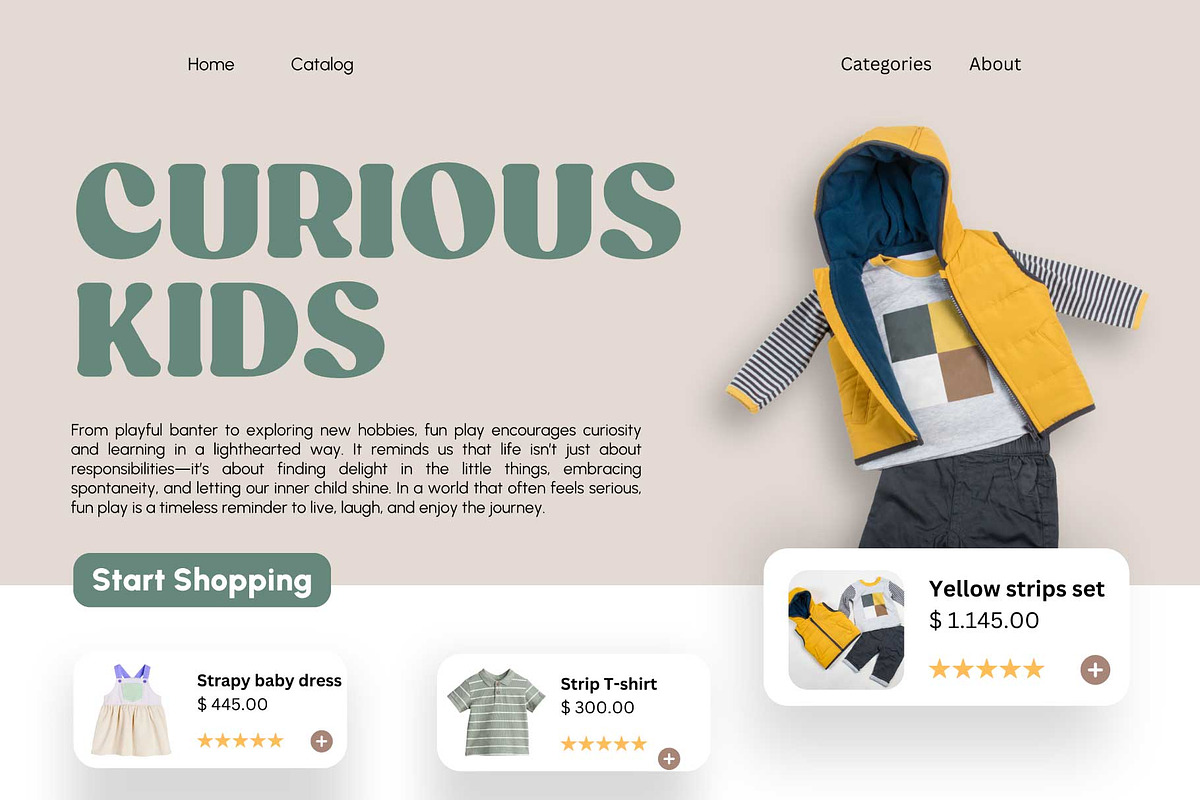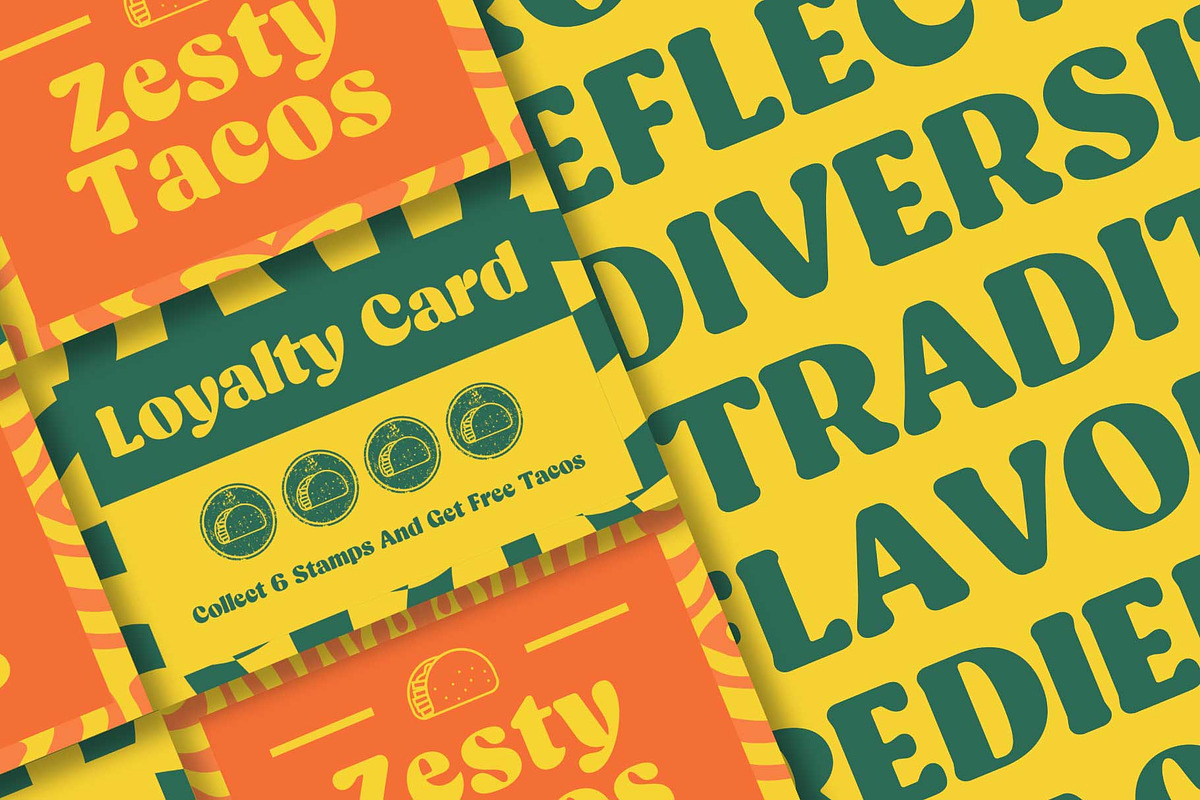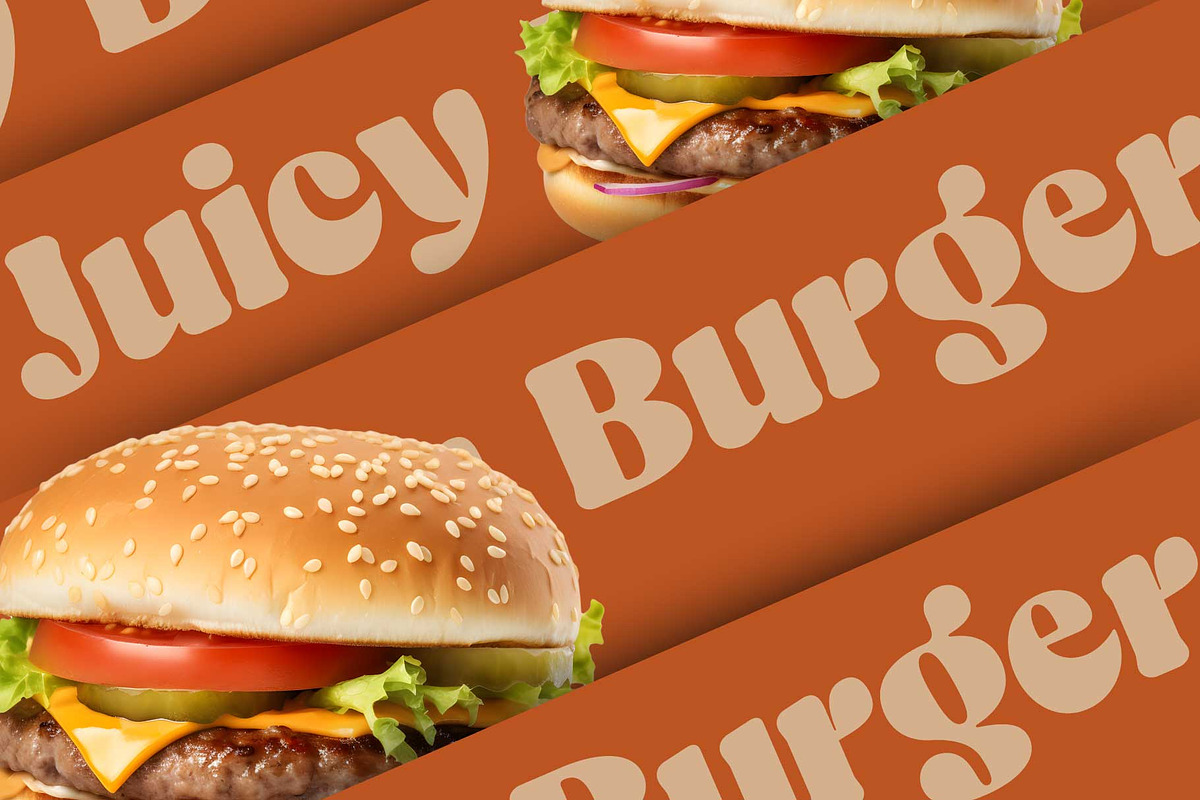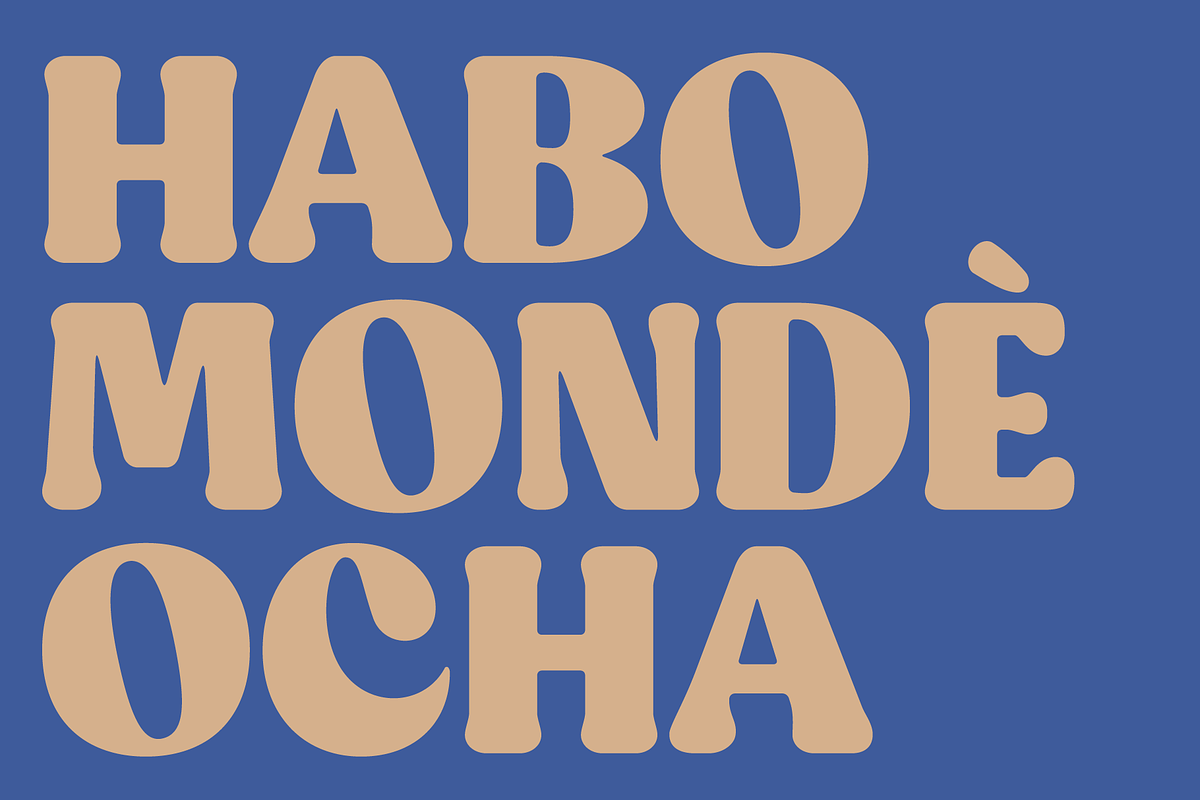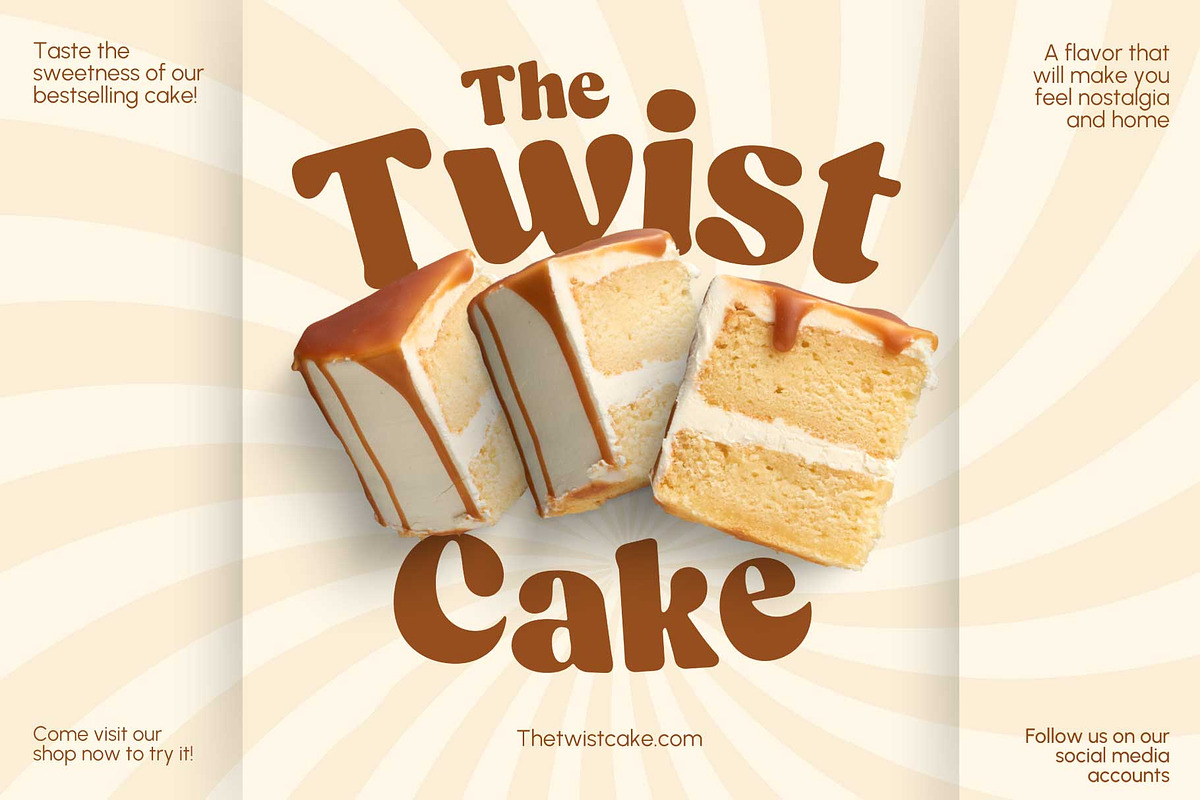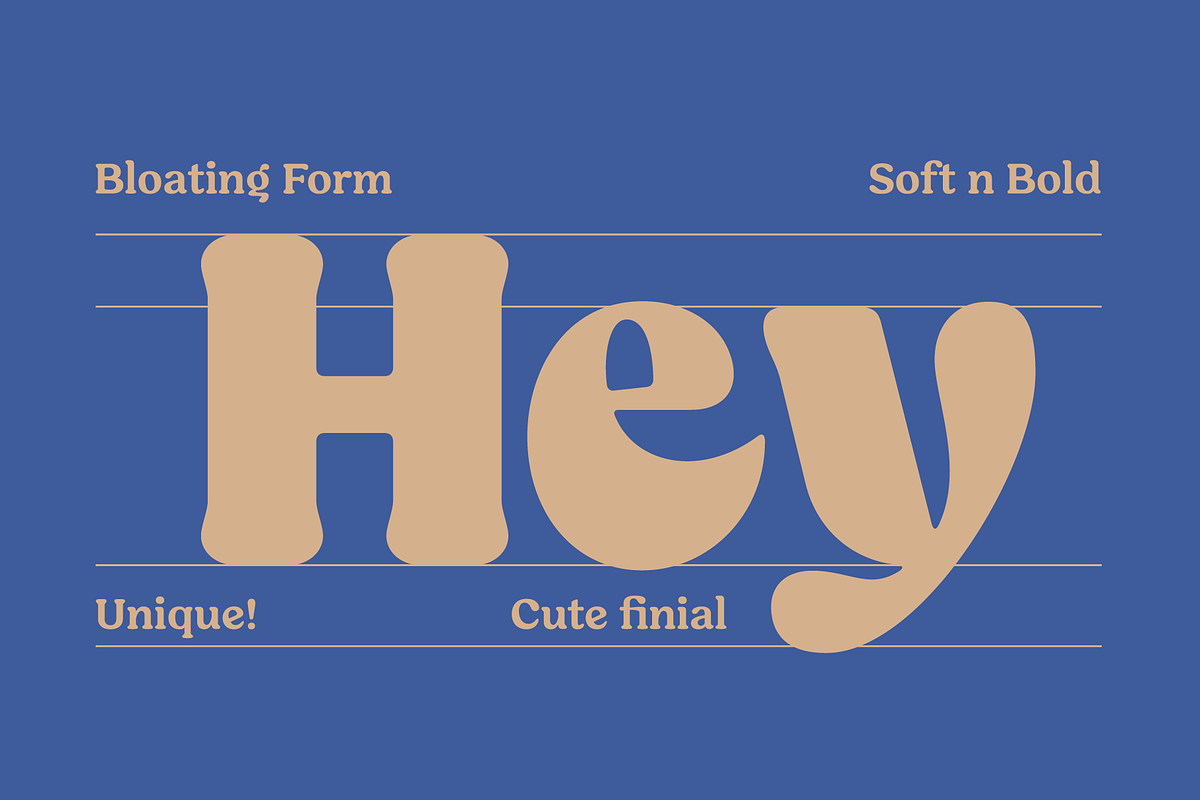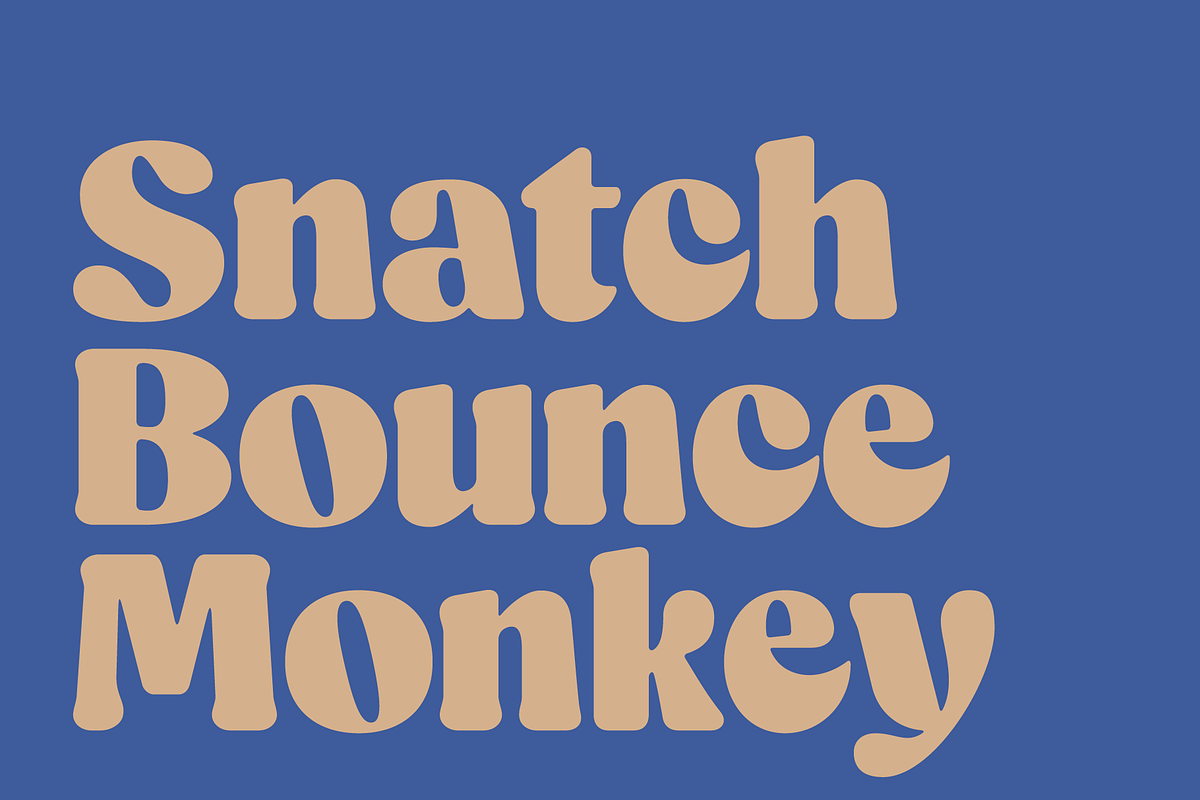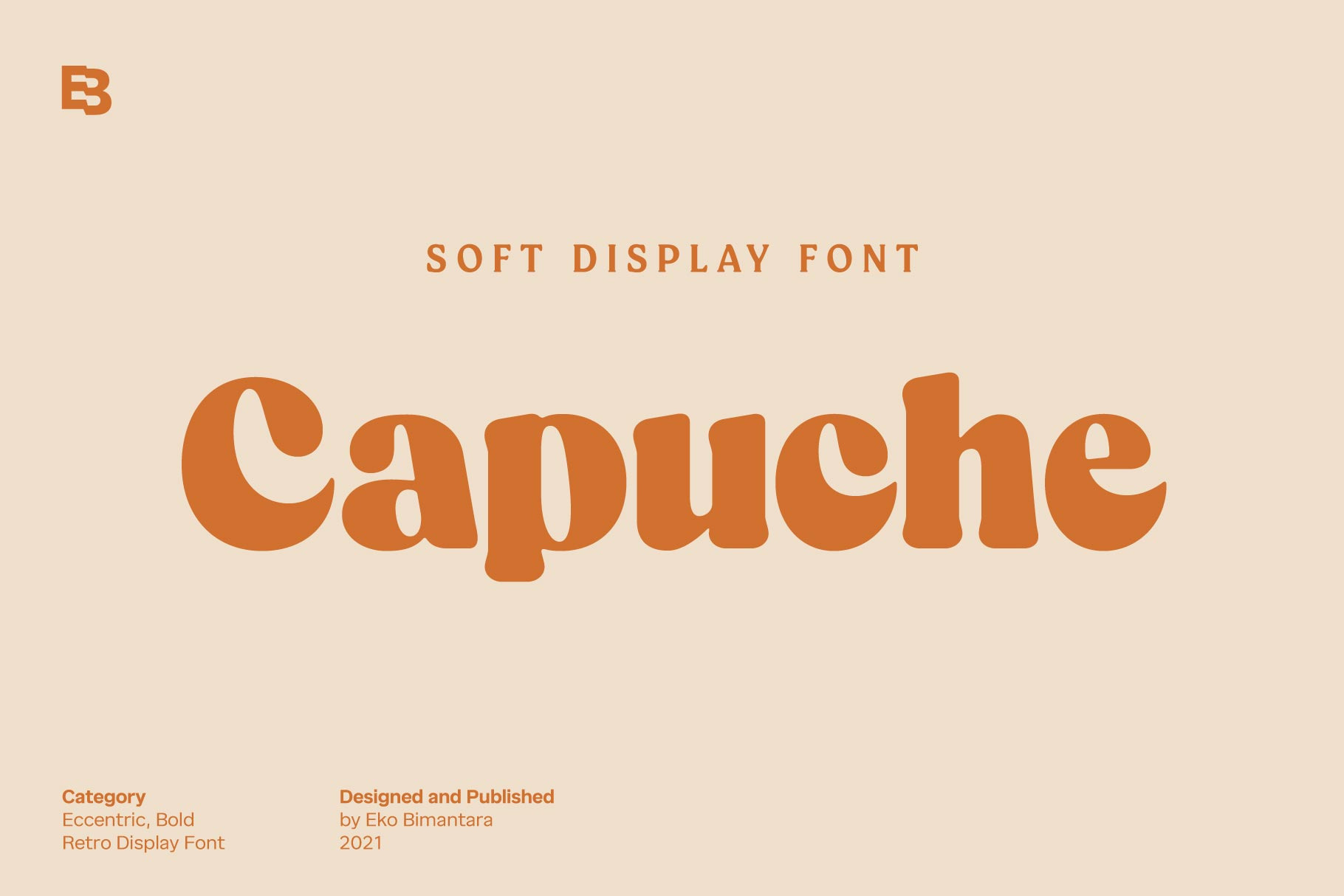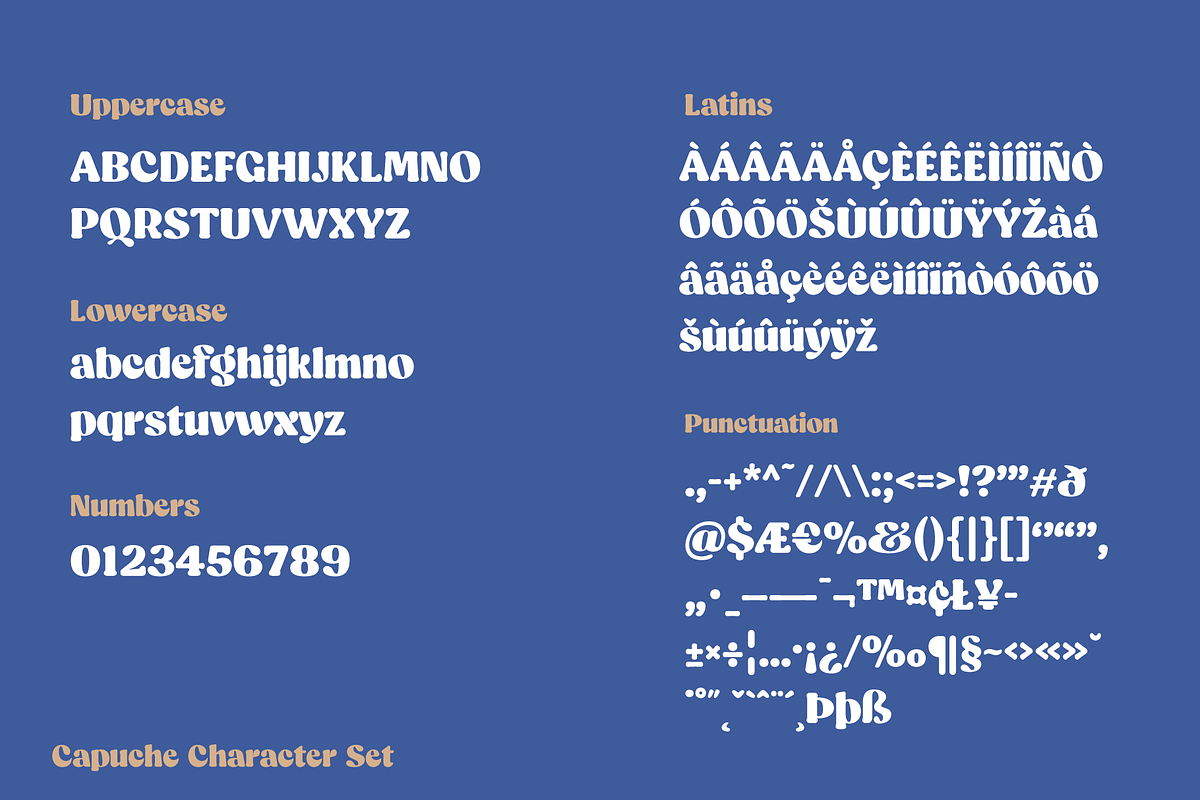
Capuche; Retro Display Font
Capuche is eccentric, bold, bloating, retro display font. Designed to be fit for various design purposes such as logo, branding, titling e.t.c